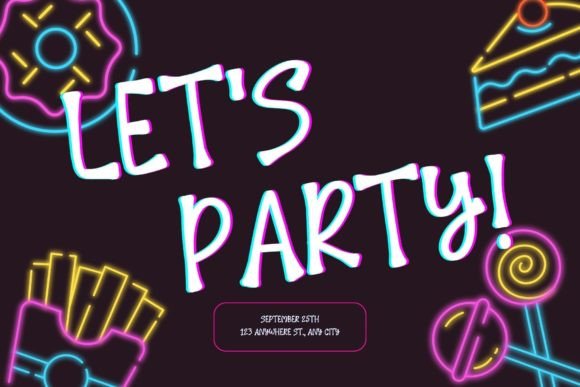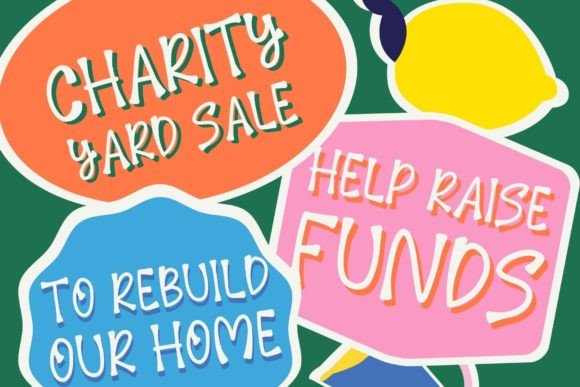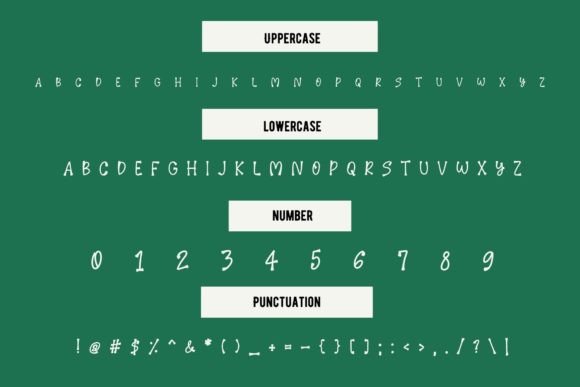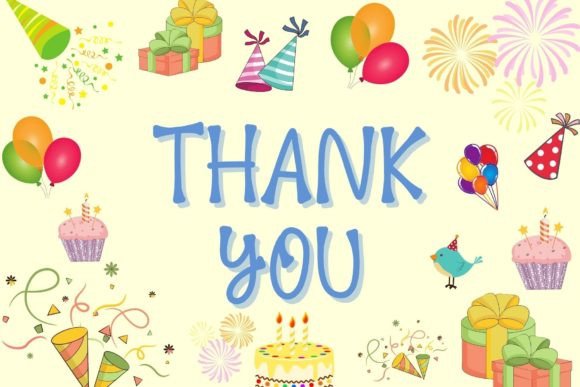
Introduction to Party in July Font
Imagine you’re brainstorming ideas for a summer birthday party, and you stumble upon a font that perfectly captures the carefree spirit of the season. That’s exactly what the Party in July Font does – it brings a smile to your face and sets the tone for a fun and creative project. This display font is a design resource that embodies playfulness and authenticity, making it the perfect choice for all your favorite projects.
As a designer, you’re always on the lookout for high-quality fonts that can elevate your creative project. The Party in July Font is a valuable addition to your design arsenal, offering a unique and eye-catching style that’s sure to grab attention. With its transparent background and easy-to-use design, this font is a breeze to download and incorporate into your work.
Key Features of Party in July Font
- Perfect for parties, celebrations, and summer-themed projects
- Unique, colorful, and playful design elements that add a festive touch to any project
Honest Review: Party in July Font
As a designer, I’m always on the lookout for high quality design resources that can elevate my creative projects. I recently had the chance to try out the Party in July Font, and I must say, it’s a unique and fun addition to any design project.
- The font has a transparent background, making it easy to overlay on top of images or other design elements.
- The font’s playful and celebratory vibe makes it perfect for summer-themed projects or events.
- The font may not be suitable for professional or corporate projects, as it’s a bit too casual and playful.
- The character set may be limited, which could be a problem for designers who need to use the font for complex text-based projects.
Overall, I think the Party in July Font is a great resource for designers who want to add a bit of fun and personality to their projects. While it may have some limitations, it’s definitely worth checking out if you’re looking for a unique and free design resource.
The Party in July Font is a versatile and vibrant design resource ideal for creative projects that require a high-quality and eye-catching typography. This free download features a transparent background, making it easy to incorporate into various design platforms.
Common Use Cases for Party in July Font
The Party in July Font is ideal for a variety of creative projects,